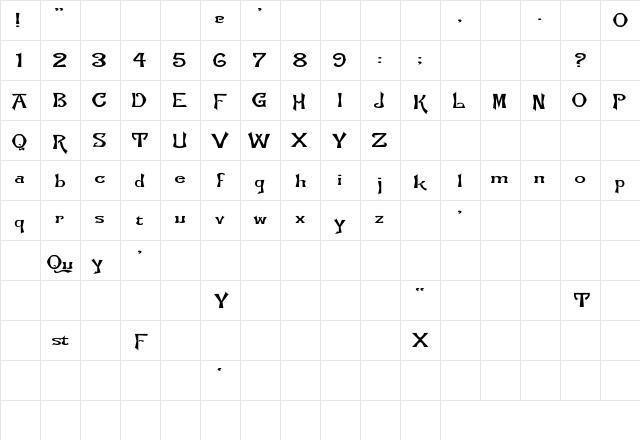
Flemish-Normal Ex Regular
Design Context for Flemish-Normal Ex
Flemish-Normal Ex is a composed and adaptable typeface that performs quietly and consistently across a wide range of design contexts.